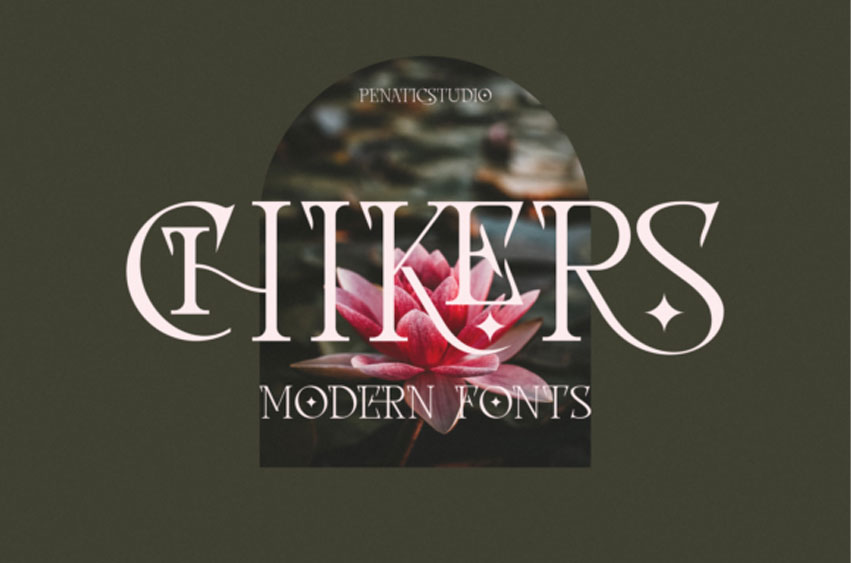
Chikers Font
Chikers Font is a distinct, assertive, and stylish serif font. It is PUA encoded, which means you can access all of the glyphs and swashes with ease!
Use this font for your designs and explore its endless possibilities.